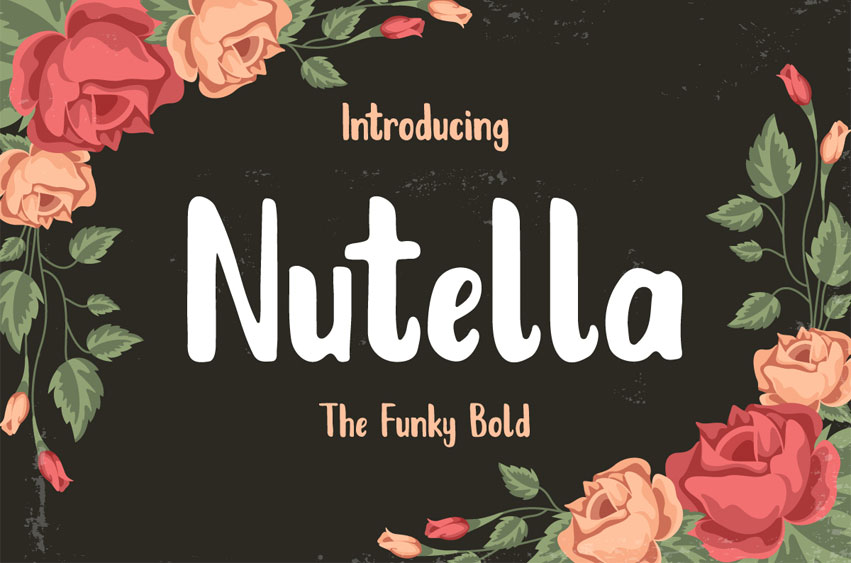
Nutella Font
Nutella Font is a contemporary brush font. The font was painted on paper and carefully digitized and perfected into a smooth typeface.
It works well on different type of projects because of it’s stylish, slightly playful look.